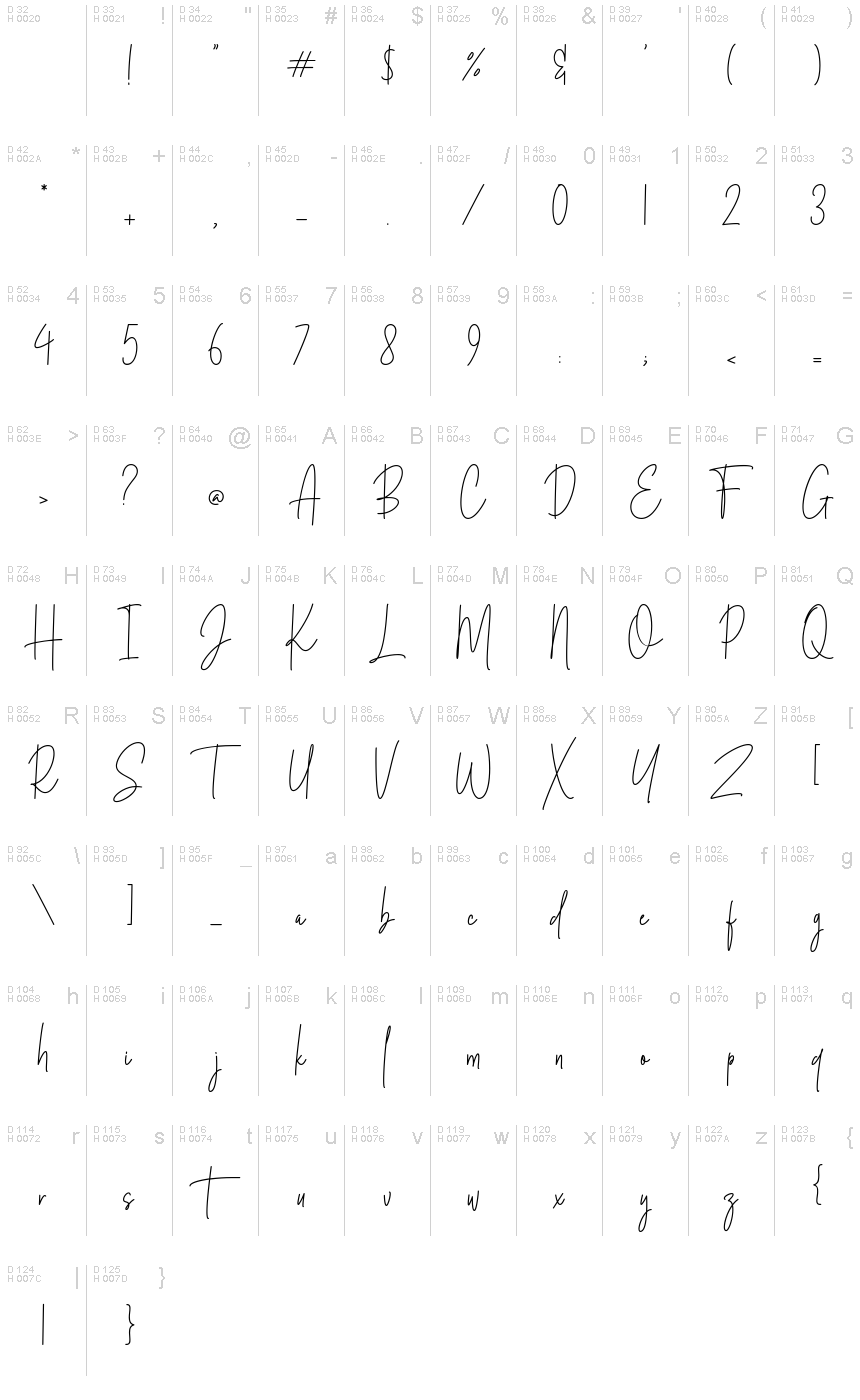
Silver Notes Demo
Silver Notes, meticulously crafted by MJB Letters, embodies the personal touch of handwritten communication with its signature style. The font boasts an extra-light weight paired with a condensed width, offering a delicate and elegant aesthetic that evokes the grace of quicksilver calligraphy.
Its fluidity and subtle sophistication make it ideal for projects requiring a bespoke feel—be it luxury branding, personalized invitations, or creative editorial work. Silver Notes' charm lies in its ability to infuse designs with intimacy and flair, making it a versatile choice for those seeking to convey artistry and individuality in their visual narratives.